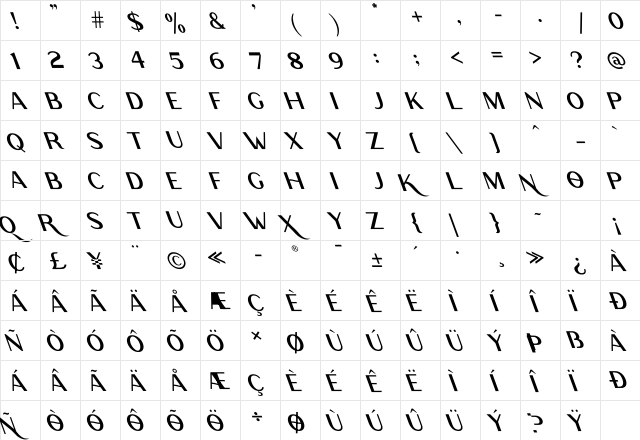
Rodano Oblique Regular
Design Context for Rodano Oblique Typeface
Rodano Oblique offers clean, dependable letterforms without strong stylistic allegiance, making it a practical choice for designers who need flexibility. The slanted form adds forward momentum and visual energy.
Pro Tip: Try Rodano Oblique for annotation and caption copy alongside an upright companion — the contrast in angle creates a dynamic but ordered typographic system.